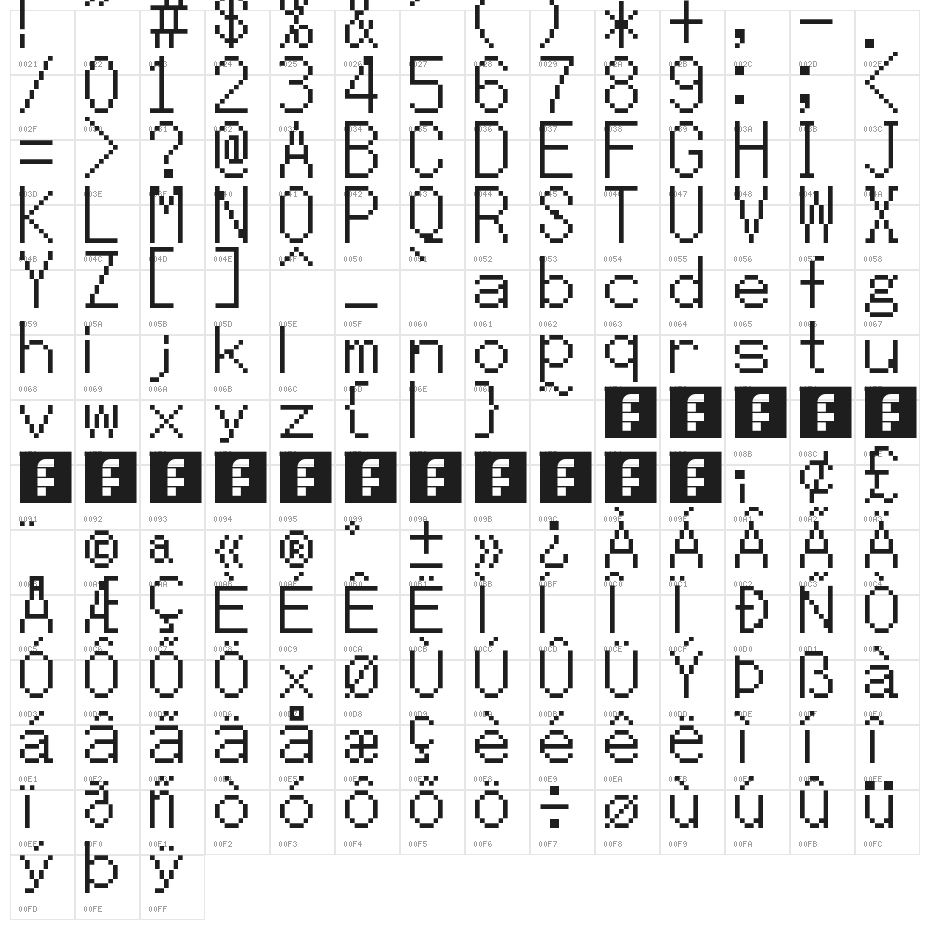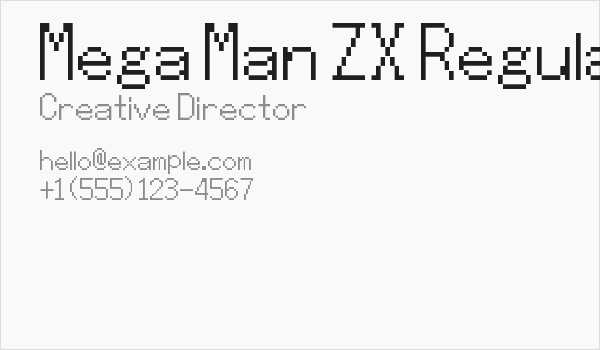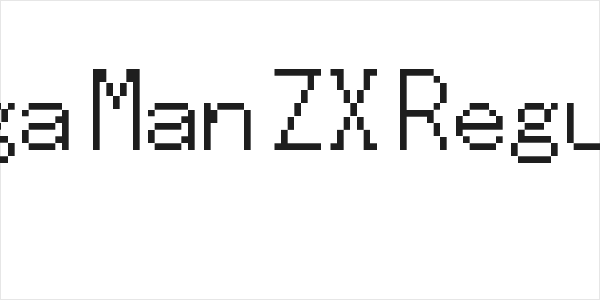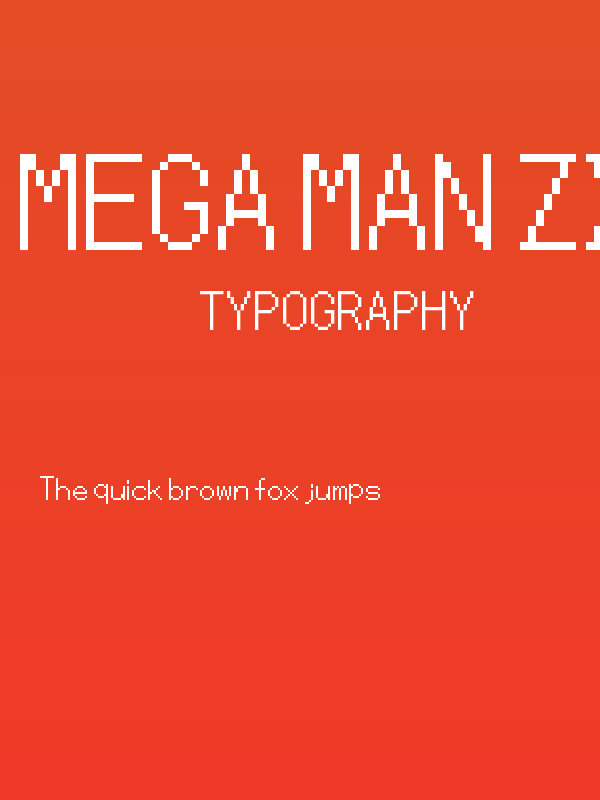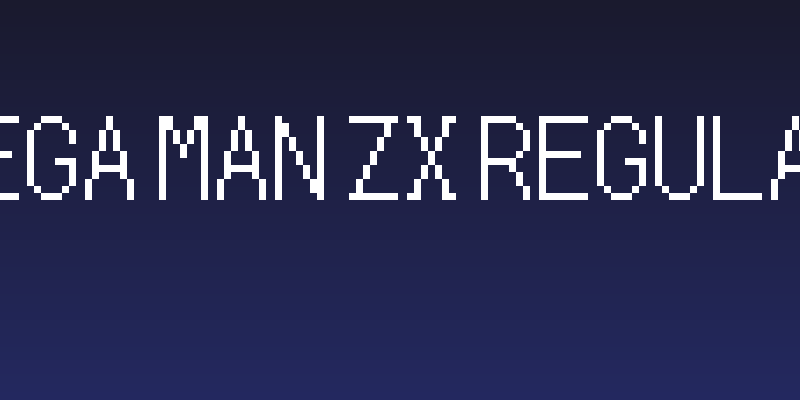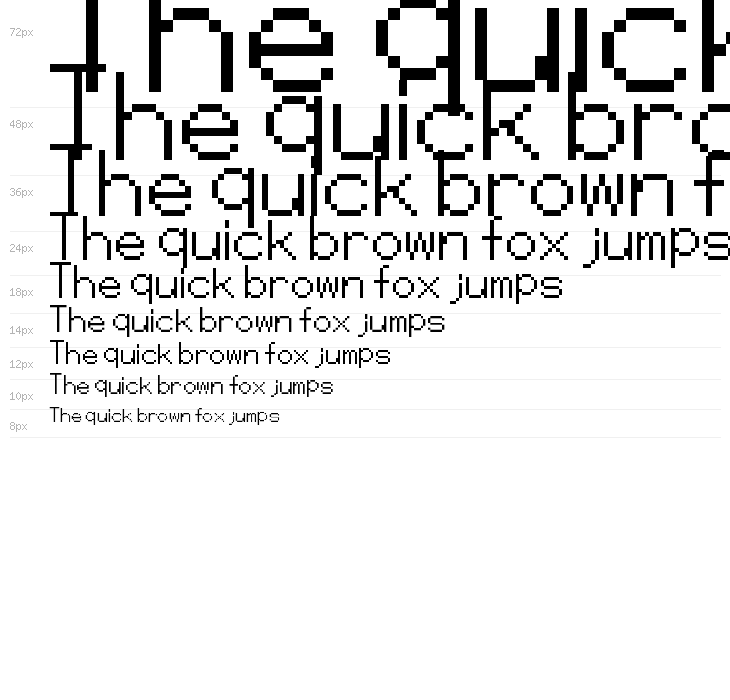
Mega Man ZX Regular Font
Mega Man ZX Regular Description
This font exhibits a pixelated, grid-like structure reminiscent of classic video game typography. Each character is composed of small, uniform squares, creating a distinct digital aesthetic. The uppercase and lowercase letters maintain a consistent height and width, contributing to a monospaced appearance. The numerals and special characters follow the same design principles, ensuring uniformity across the entire character set. The font's simplicity and blocky style evoke a sense of nostalgia, making it ideal for projects that aim to capture a retro or tech-inspired theme.
Overall StyleRetro, Digital
Use CaseLogos, Digital displays, Video games
Proposed ProjectsIdeal for video game design, retro-themed graphics, digital art projects, and tech-inspired branding.